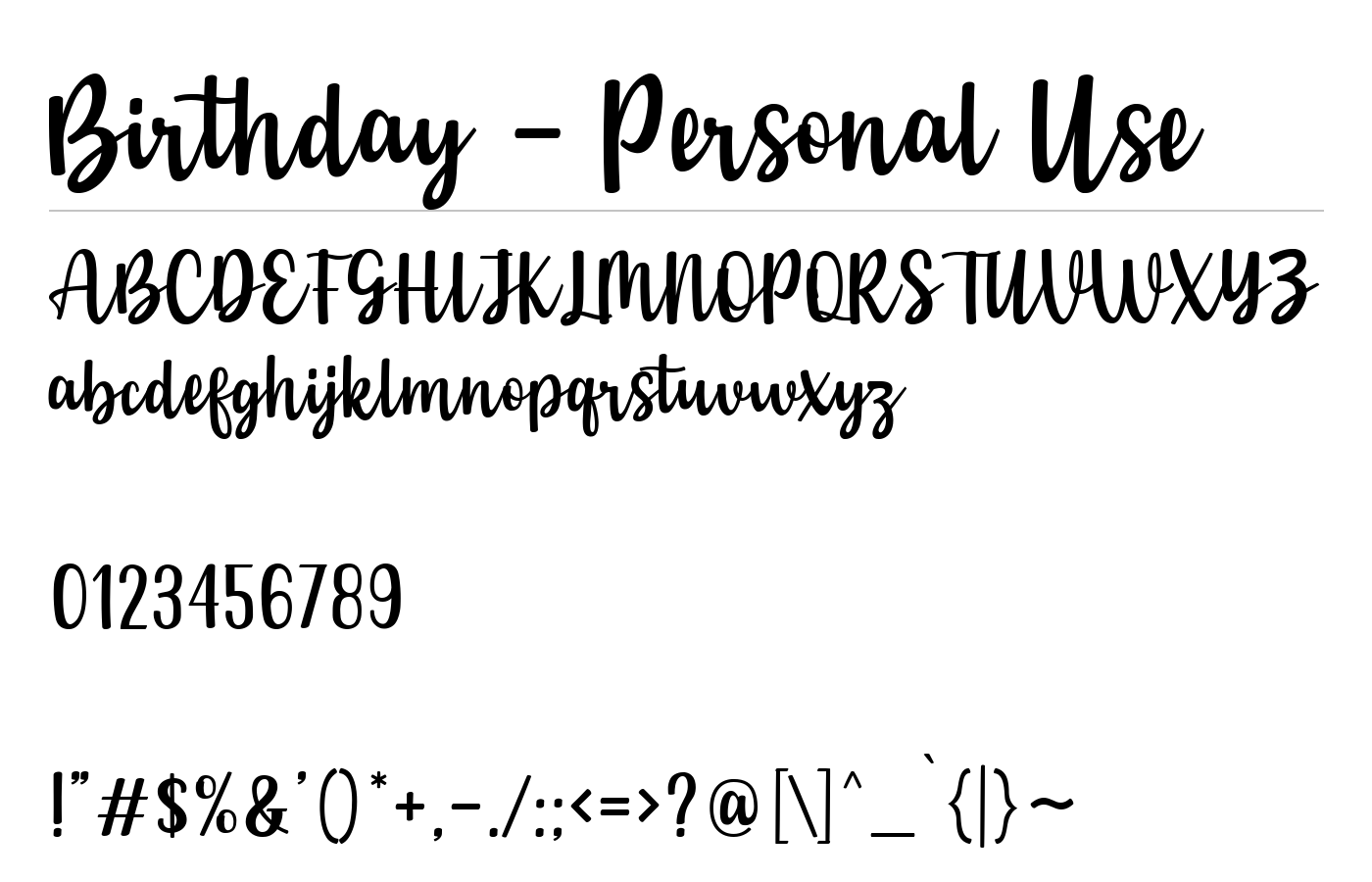
Birthday is a lively script font with a casual, hand-lettered feel, featuring smooth, rounded strokes and a friendly, modern style. Its tall, slightly condensed letterforms combined with consistent weight and playful curves make it perfect for cheerful, personal projects like invitations, greeting cards, and branding that seeks a warm, approachable vibe. This font works well in headlines and decorative text where a touch of personality and charm is desired.
Birthday - Personal Use Font
About Birthday - Personal Use Font